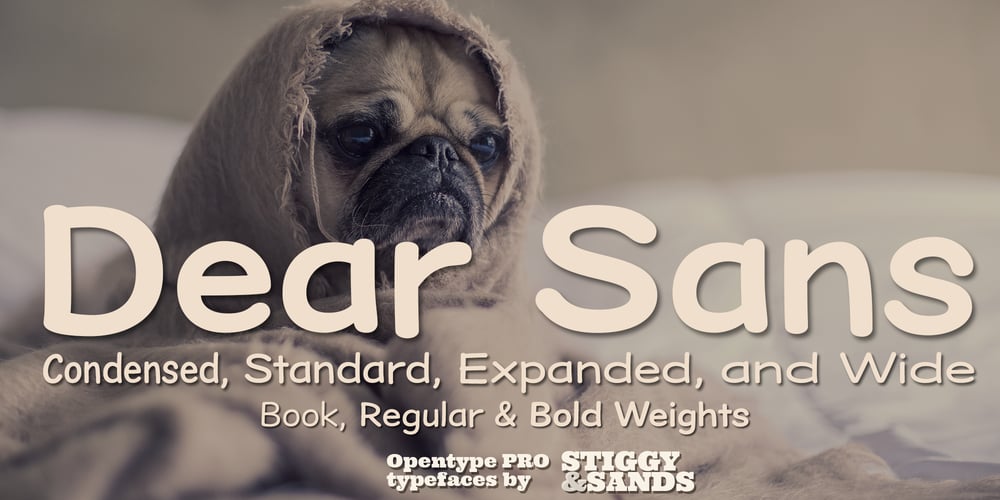
Dear Sans Font Family was designed by Jim Lyles, Brian J. Bonislawsky and published by Stiggy & Sands. Dear Sans contains 12 styles and family package options. The Dear Sans Collection is comprised of four widths ranging from Condensed, Regular, Expanded, and Wide; each of which are comprised of a three font family of weights: Book, Regular & Bold. Cleanly readable, with just a slight hint of silliness, the Dear Sans Collection brings adds the perfect level of lightheartedness to your designs. The Dear Sans Collection comes with: – Approx. 367 Character Glyph Set per font – including standard & punctuation, international language support, and basic “fi fl” ligatures per font. – 3 Weights per family including: Book, Regular, and Bold. – Loads of Personality for your designs.